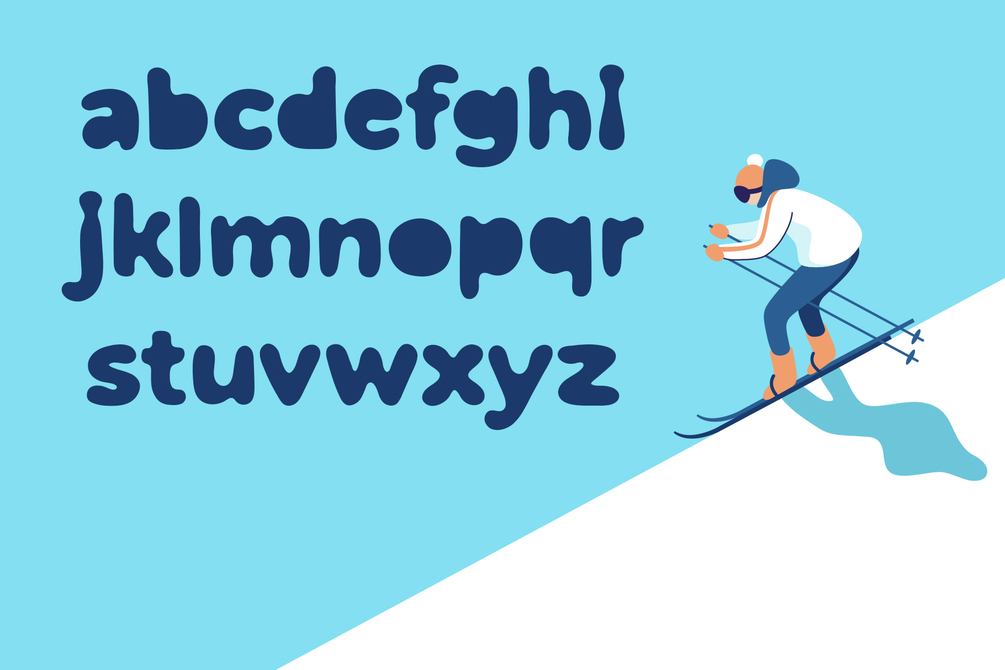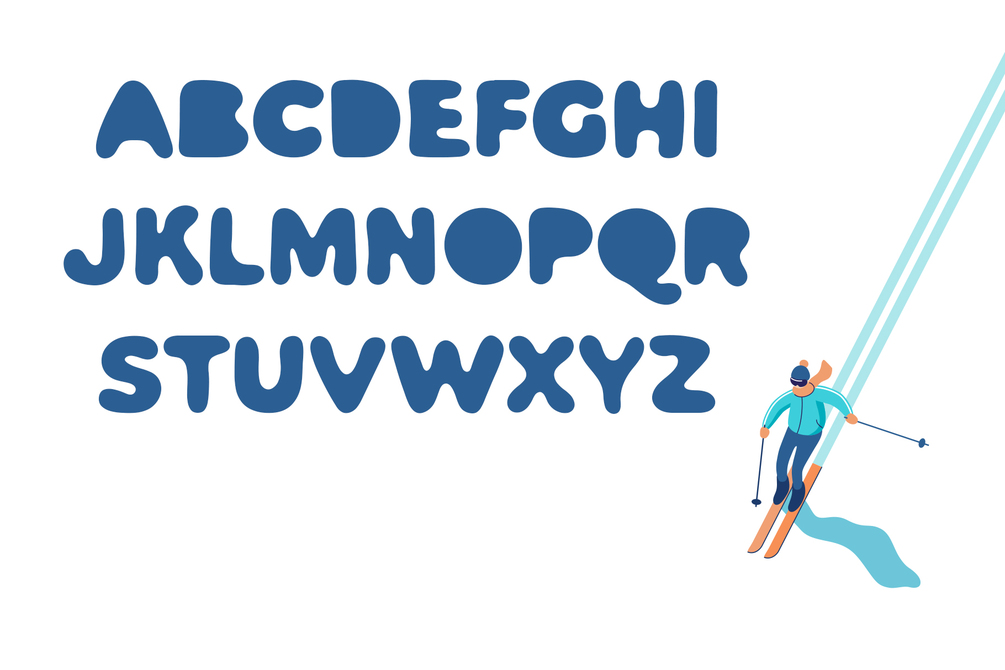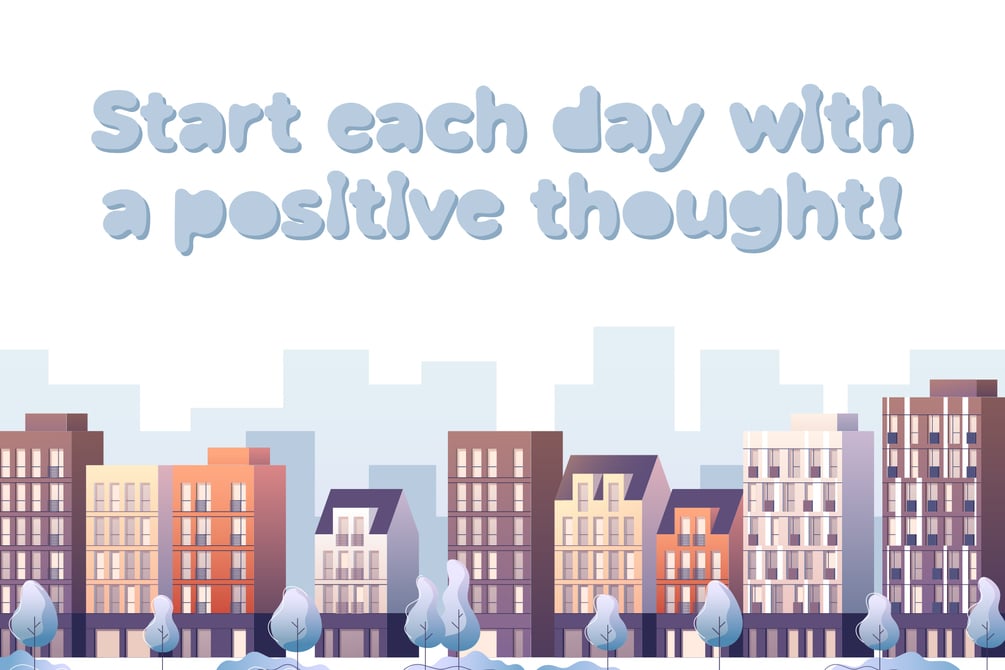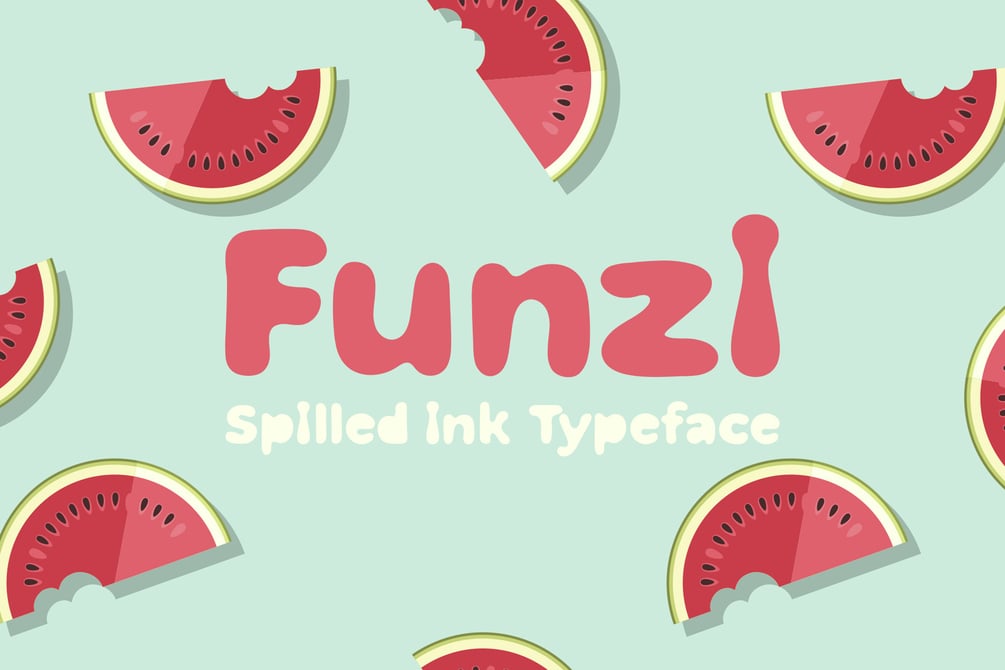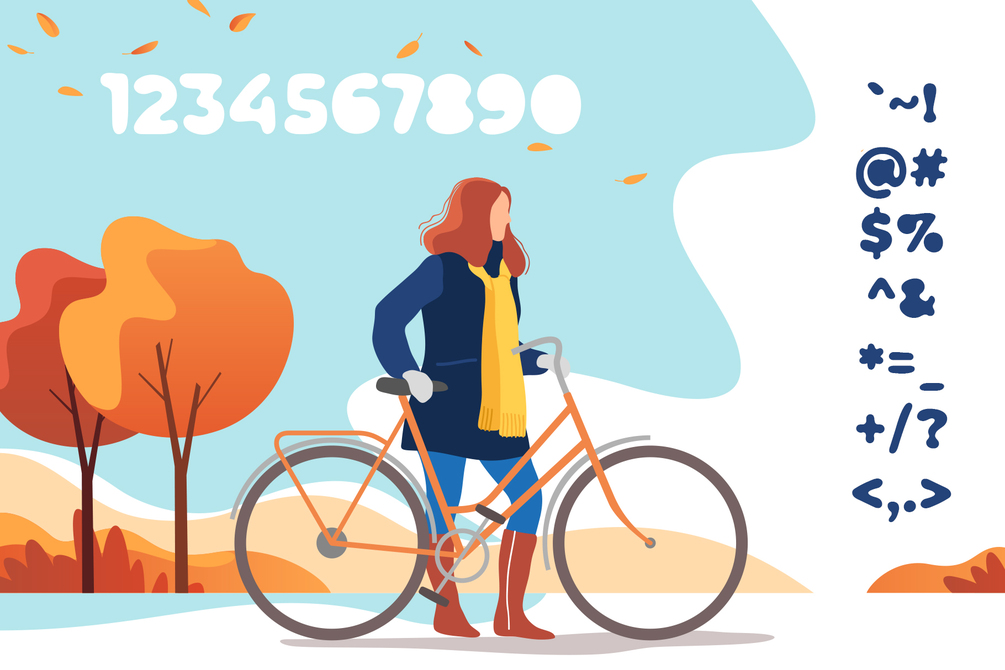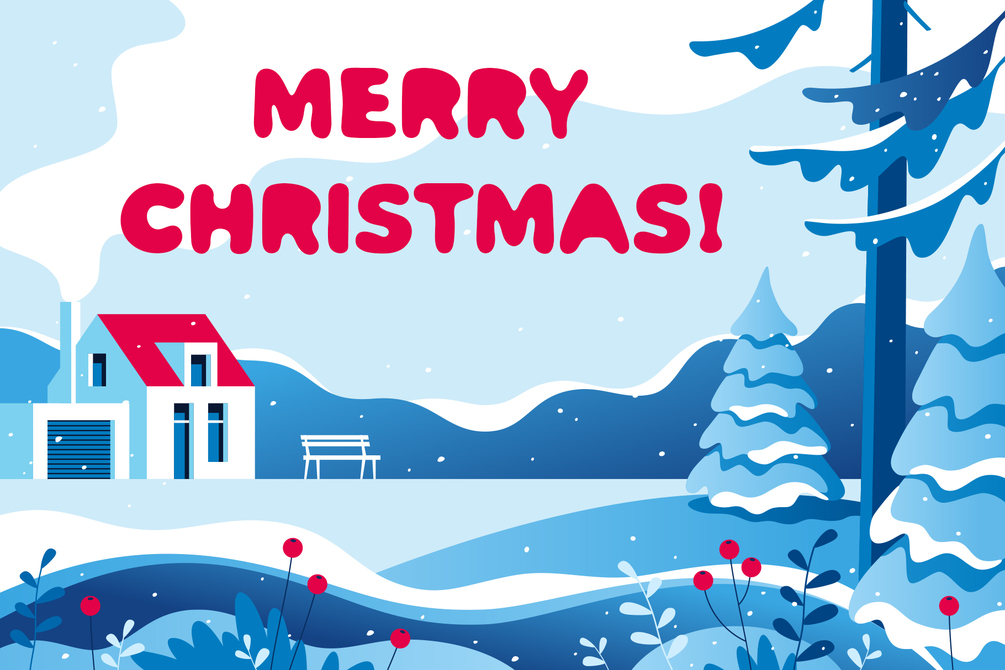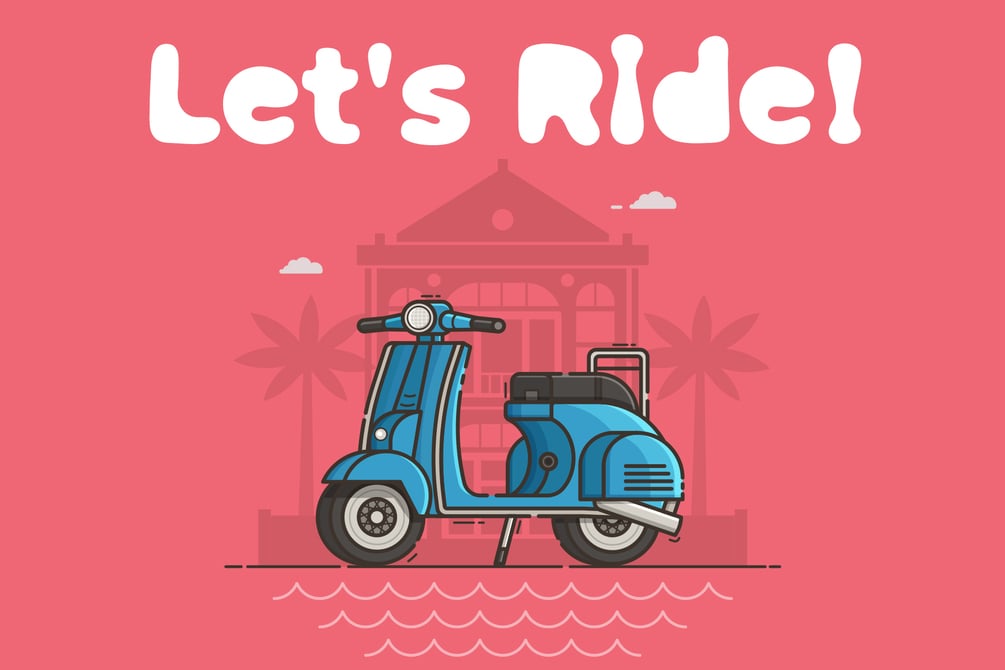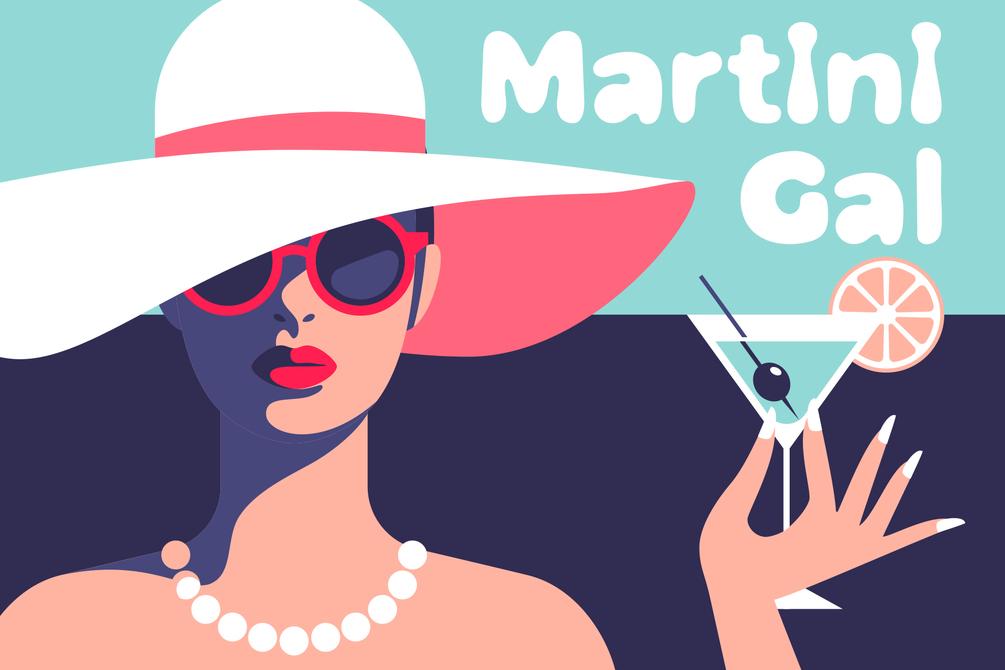
Funzi - Spilled Ink Typeface
Funzi is a handwritten bold typeface. This playful font was inspired by the idea of spilled ink that spreads and fills the shape of letters. Its smooth rounded corners are comforting to the eye and give a welcoming feeling to the viewer. Funzi is perfect for greeting cards, children books, quotes, posters, invitations, business cards, presentations and more.